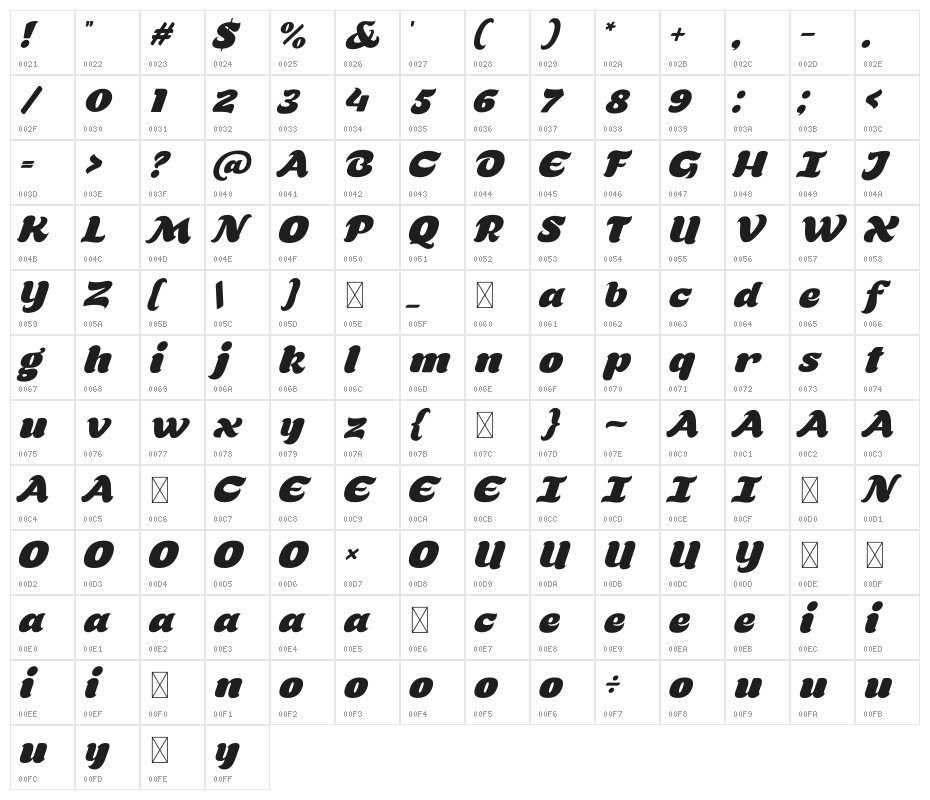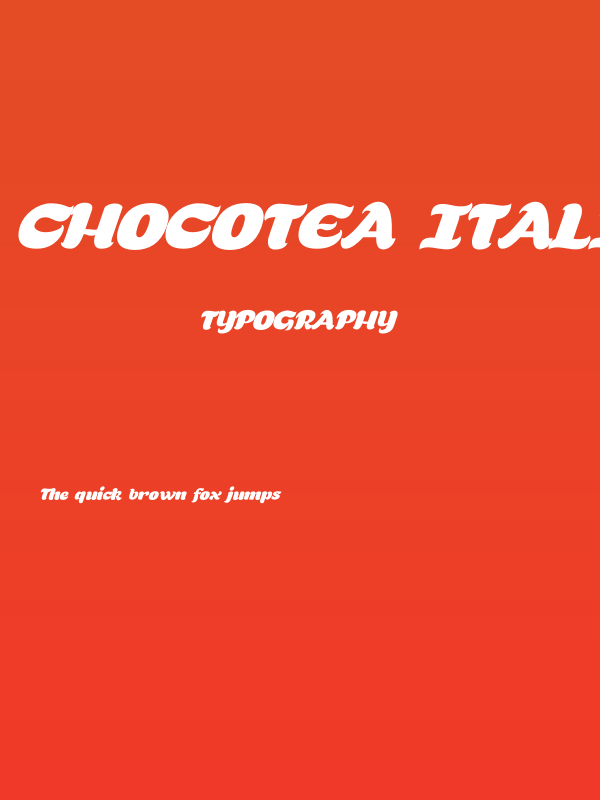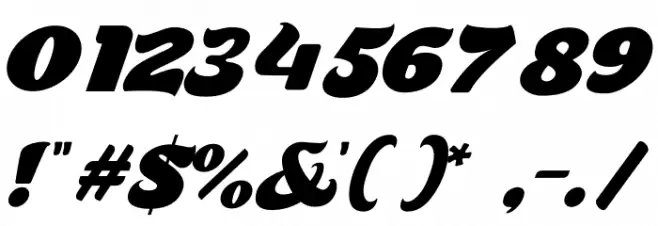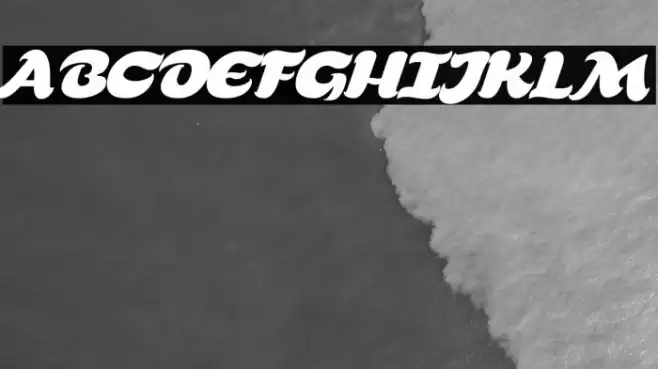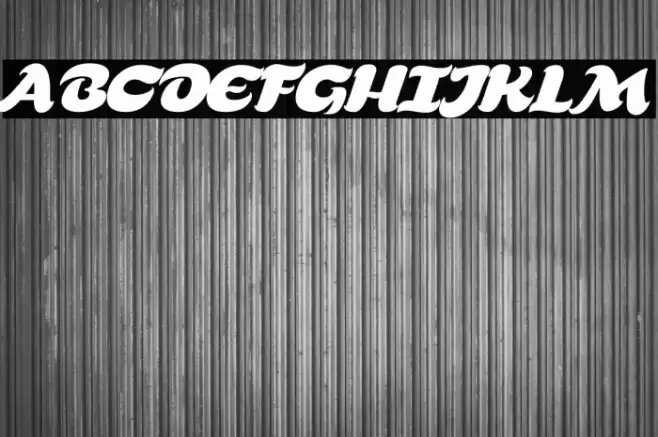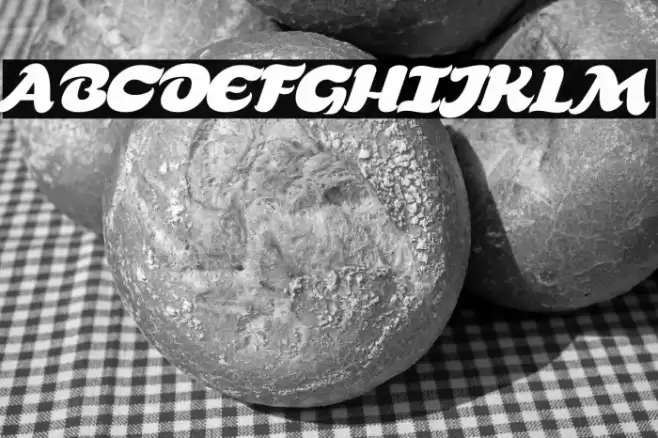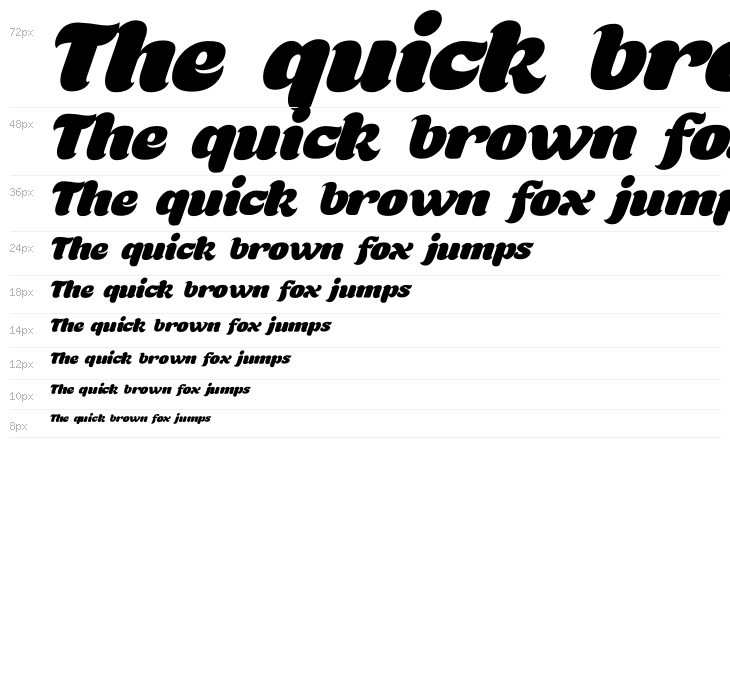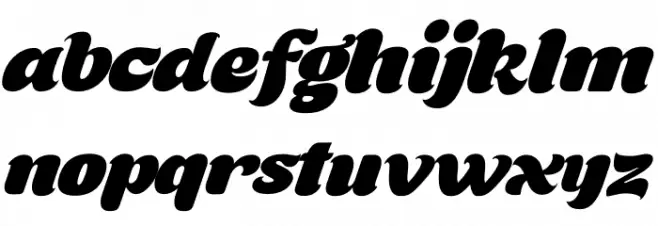
Chocotea Italic Font
Chocotea Italic Description
This font features a bold and dynamic script style with a strong italic slant, giving it a sense of movement and energy. The characters are thick and rounded, with smooth curves and a flowing design that adds a touch of elegance. The uppercase letters are particularly striking, with a bold presence that commands attention. The lowercase letters maintain the same boldness, ensuring consistency throughout. The numerals are equally robust, making them stand out clearly. Special characters are well integrated, maintaining the overall aesthetic of the font. This font is perfect for creating impactful and stylish designs.
CHOCOTEA-ITALIC UPPERCASE
CHOCOTEA-ITALIC LOWERCASE
CHOCOTEA-ITALIC OTHER CHARS
| Proposed Projects | Ideal for branding, packaging design, posters, and any project requiring a bold, stylish script. |